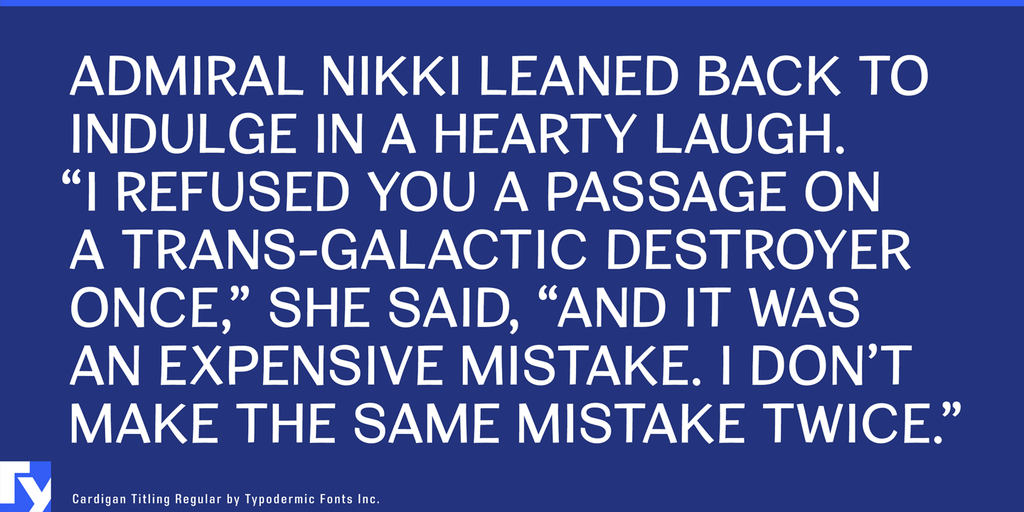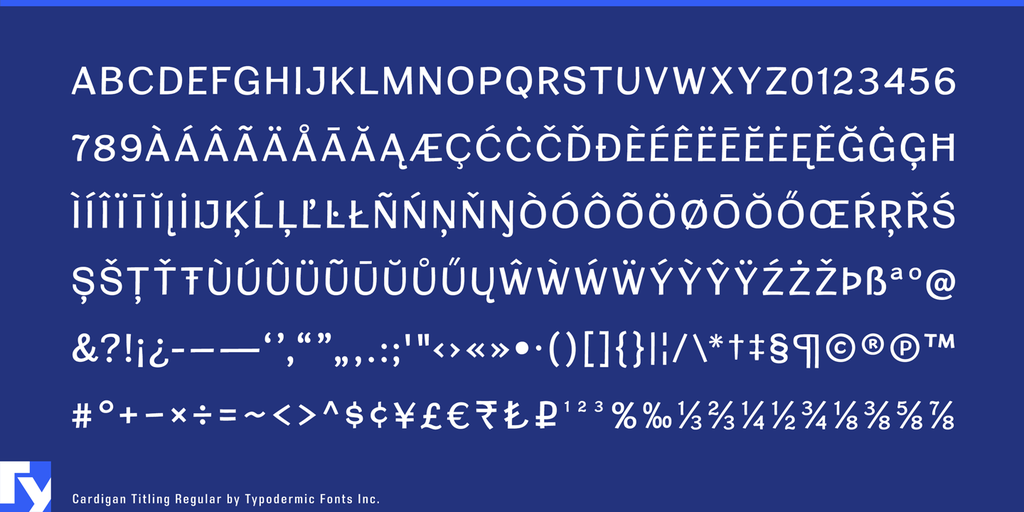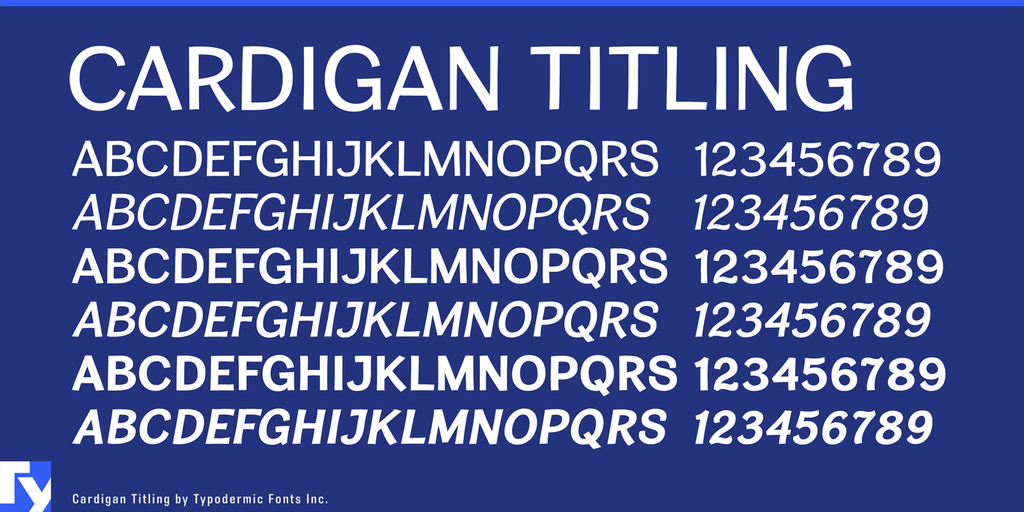
Cardigan Titling Font Family
Cardigan Titling brings the approachable character of Cardigan into an all-uppercase headline family. Three weights with matching italics combine clear letterforms and a gentle rhythm for lifestyle branding, book covers, magazines, packaging, hospitality, and other titles that should feel warm rather than severe.